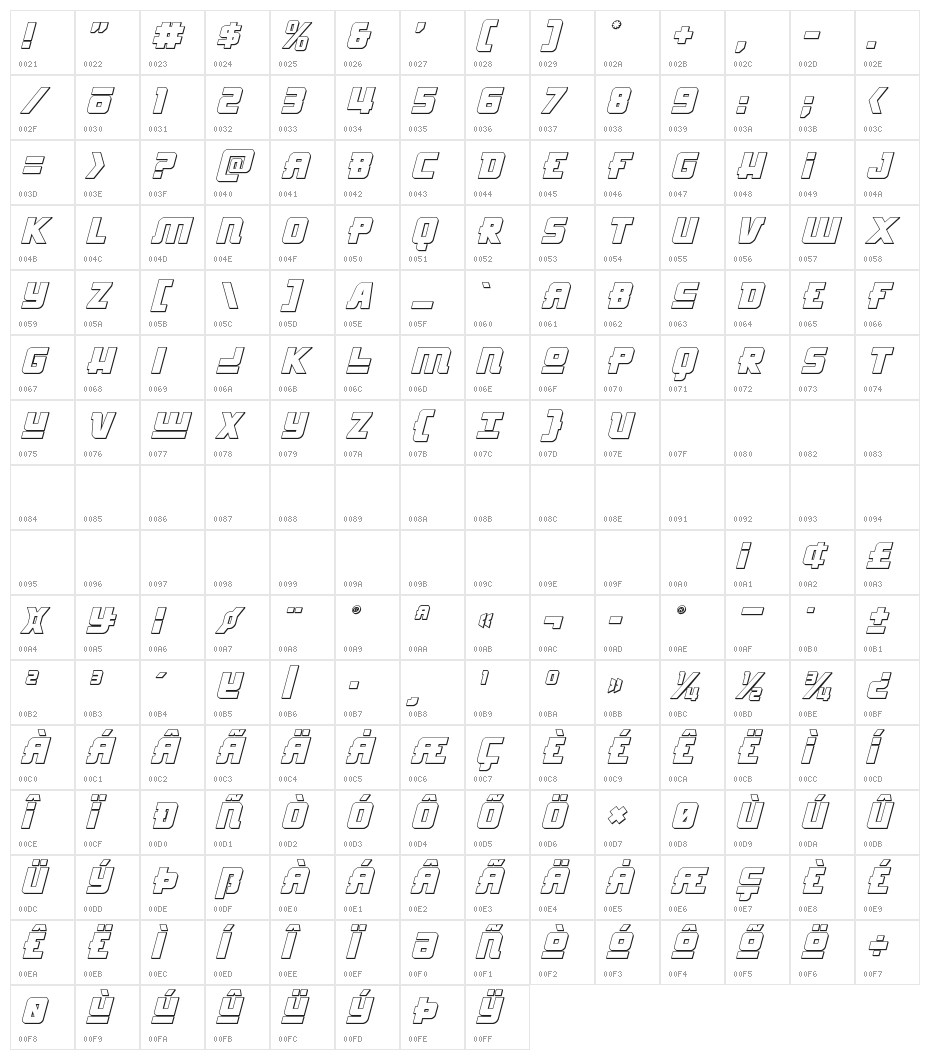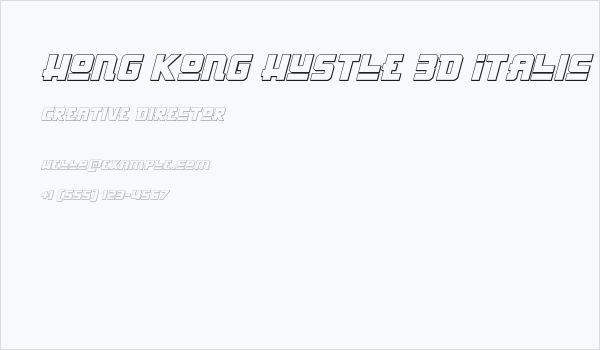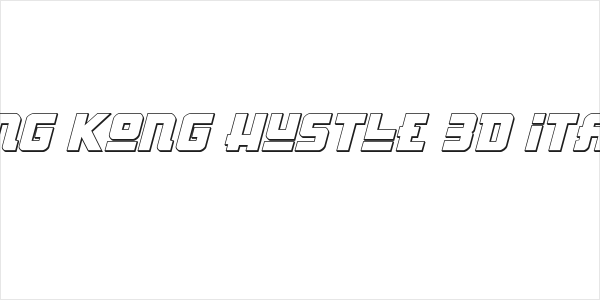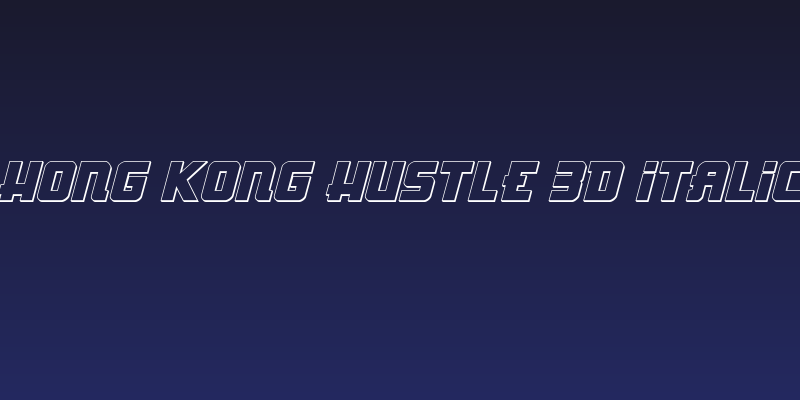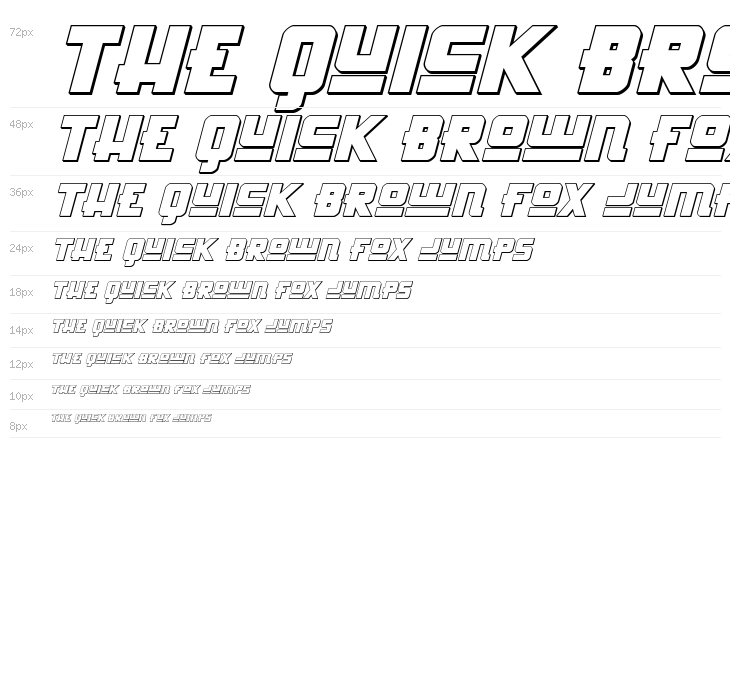
Hong Kong Hustle 3D Italic Font
Hong Kong Hustle 3D Italic Description
This font features a bold, three-dimensional design with an italic slant, giving it a dynamic and futuristic appearance. The characters are outlined, creating a hollow effect that enhances the 3D illusion. The style is geometric with sharp angles and clean lines, making it stand out in any design. Its unique structure is ideal for projects that require a modern and edgy look. The uppercase and lowercase letters maintain a consistent style, while the numbers and special characters complement the overall aesthetic.
| Proposed Projects | Ideal for video game titles, movie posters, tech branding, and futuristic-themed designs. |